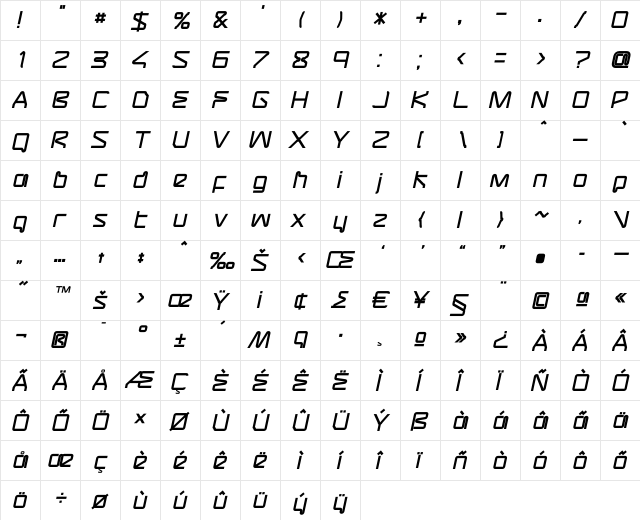
Assembler-BoldOblique Regular Font Preview
Design Context for Assembler-BoldOblique Typeface
Assembler-BoldOblique takes a measured approach to typography — its balanced proportions and neutral character make it a reliable workhorse for both digital and print work. The slanted form adds forward momentum and visual energy. The heavy weight commands attention and anchors typographic hierarchies.
Pro Tip: Try Assembler-BoldOblique for annotation and caption copy alongside an upright companion — the contrast in angle creates a dynamic but ordered typographic system.